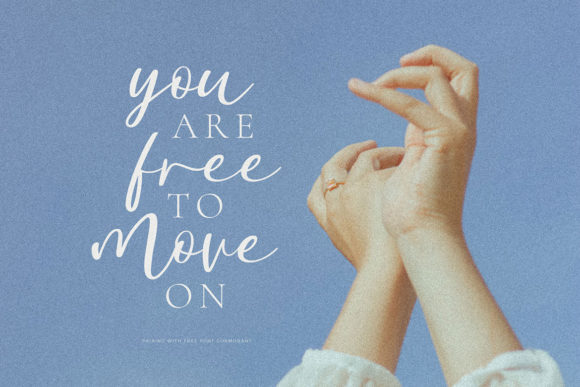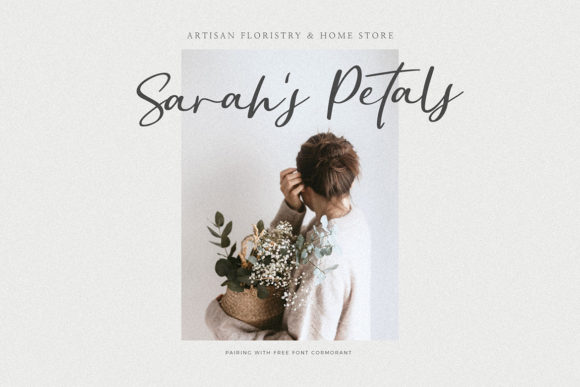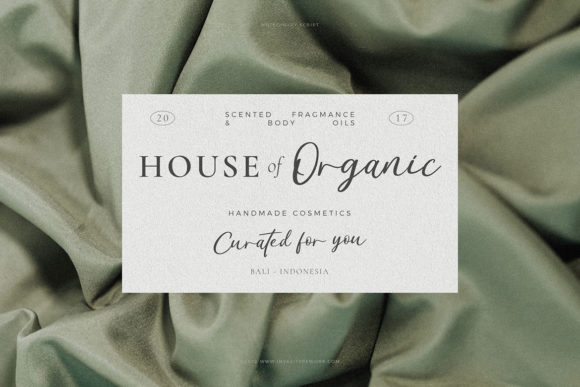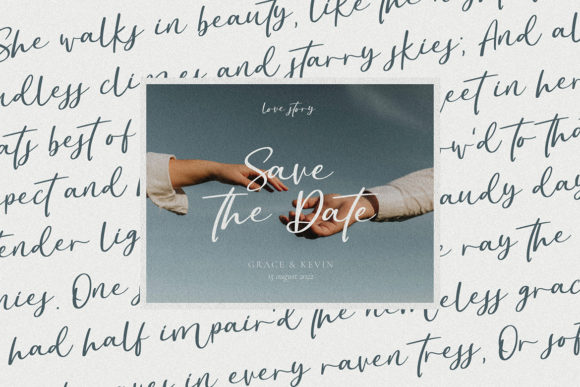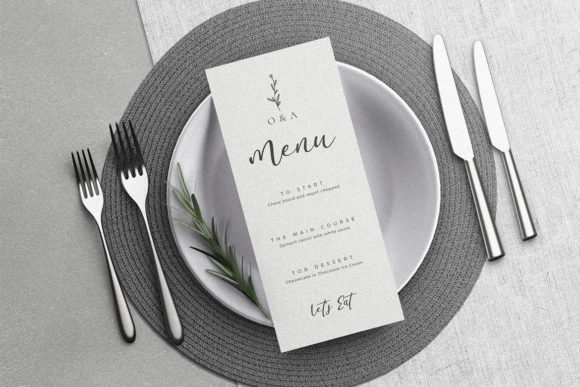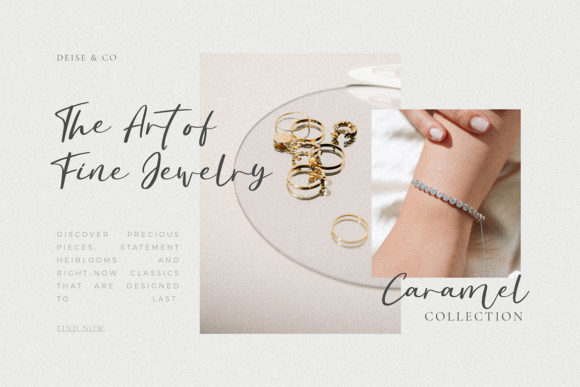
Introduction to Notedinary Font
There’s nothing quite like the thrill of stumbling upon the perfect design element for a creative project. For many of us, it’s that ‘aha’ moment when everything clicks into place, and our vision starts to take shape. For designers, it’s often the search for that elusive font that adds a touch of personality to our work. Enter the Notedinary Font, a relaxed and casual handwritten font that’s set to become a staple in your design arsenal.
With its PUA encoded features, accessing the glyphs and swashes is a breeze, allowing you to add a professional touch to your projects. Whether you’re working on a free download or a high-quality design resource, the Notedinary Font is sure to elevate your work. Its versatility makes it perfect for a wide range of applications, from web design to print materials, and even logos with transparent backgrounds.
As a valuable design resource, the Notedinary Font is a must-have for any creative professional. Its unique style and ease of use make it an ideal addition to any project, and its high quality is sure to impress. So why settle for an ordinary font when you can add a touch of Notedinary magic to your work?
Key Features of Notedinary Font
- Unique, modern design with a transparent background, perfect for adding a touch of elegance to your work.
- High-resolution design, suitable for print and digital use at 300 DPI.
- Designed to be versatile and easy to use, making it a great resource for designers of all levels.
Honest Review: Notedinary Font
I recently had the chance to work with the Notedinary Font, and I must say it’s a great addition to any designer’s toolkit. The free download is a big plus, making it an excellent resource for creative projects on a budget.
One of the standout features of the Notedinary Font is its versatility. It’s perfect for creating eye-catching headings and titles, and the high-quality design ensures it looks great on any background. In fact, it’s particularly well-suited for projects with transparent backgrounds where the font can really shine.
- ✨ Versatile and suitable for various backgrounds
- ✨ Free download, making it an excellent design resource
- ⚠️ Limited character set, which may not be suitable for lengthy texts
- ⚠️ Not ideal for projects requiring a large font family
Overall, I’m impressed with the Notedinary Font. While it has some limitations, its strengths far outweigh its weaknesses, making it a valuable addition to any designer’s library.
The Notedinary Font is ideal for use in branding, marketing materials, and creative projects. It’s also perfect for designers looking for a unique and stylish font to add to their design resource library.
The Notedinary Font is carefully crafted to provide a unique and visually appealing design experience. With its sleek and modern design, it’s perfect for any creative project that requires a high-quality font. Our team of expert designers have put a lot of effort into ensuring that the font is both functional and aesthetically pleasing.